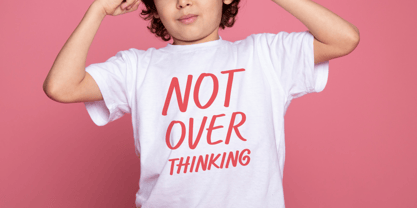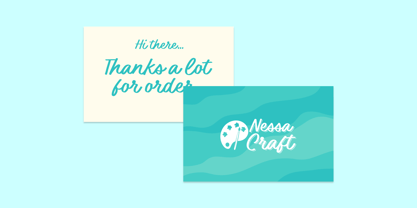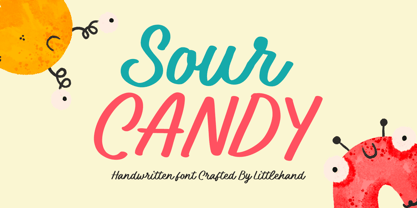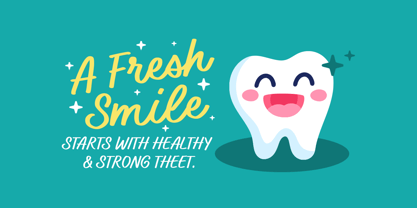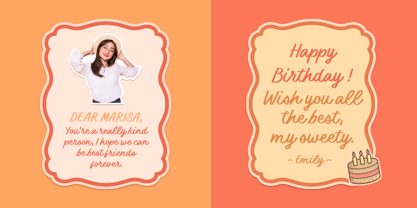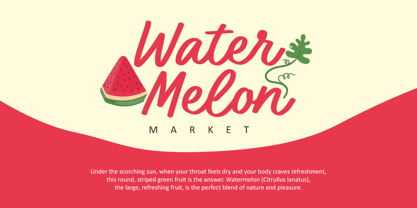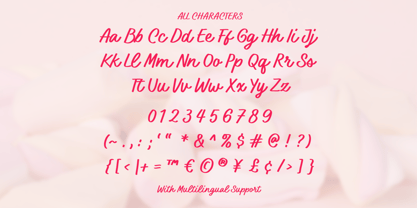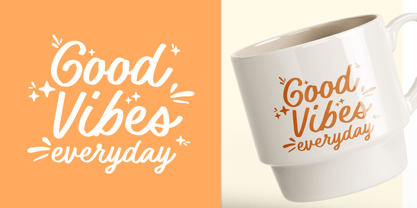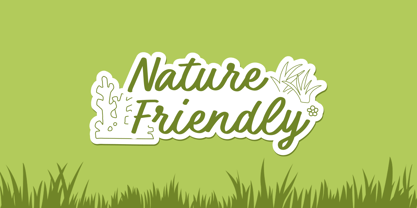
Sour Candy
by Littlehand
The Sour Candy Font Family was designed by Aryo Pamungkas and published by Littlehand. Sour Candy contains 1 styles. More about this family
Sour Candy feels bright, punchy, and full of sweet energy—like a quick sugar rush in typographic form. With its bouncy handwritten strokes, smooth curves, and slightly bold flow, this font brings a fun and playful vibe that instantly grabs attention. The letters feel lively and carefree, making every word pop with a cheerful, almost juicy look. Features : Uppercase & lowercase Numbers and punctuation Multilingual Support PUA encoded
Designers: Aryo Pamungkas
Foundry: Littlehand